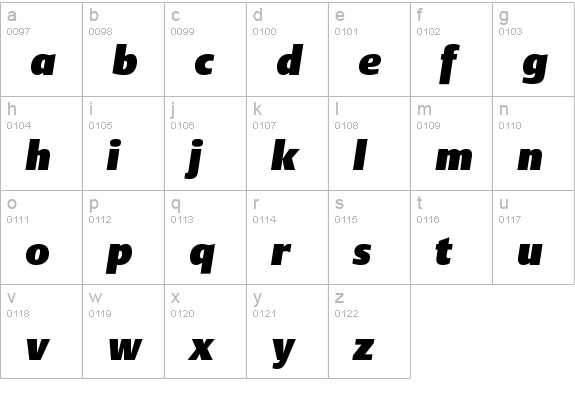
DTLArgoST-UltraHeavyItalic Font Details
The DTLArgoST-UltraHeavyItalic font is a striking and bold typeface that exudes power and sophistication. Its heavy weight and italic style make it perfect for creating eye-catching headers, titles, and logos. This font commands attention and adds a touch of elegance to any design project. What sets DTLArgoST-UltraHeavyItalic apart is not only its impressive aesthetics but also the fact that it is available for free download at FontsMarket.com. This means that designers and creatives can easily access this high-quality font without any cost, making it a valuable addition to their font library. Don't miss out on the opportunity to elevate your designs with the distinctive DTLArgoST-UltraHeavyItalic font – download it for free today!